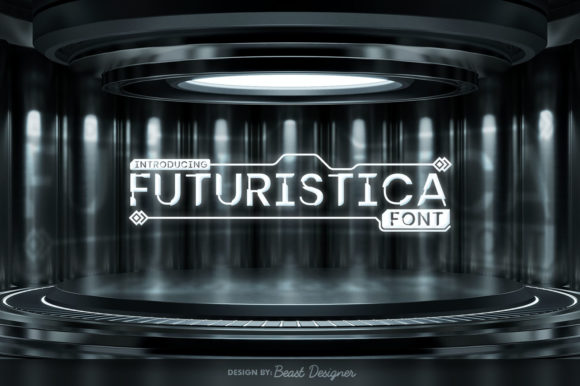
Step into the future of typography with Futuristica, the groundbreaking display font that will revolutionize your digital creations. Designed by the visionary Beast Designer, this font is a seamless blend of modernity and elegance, capturing the essence of innovation and progress.
Indulge in the limitless possibilities of Futuristica, meticulously crafted to elevate your designs to new heights. With its crisp and clean lines, this font exudes a sense of sophistication and cutting-edge aesthetics. Whether you're a seasoned designer or just starting, Futuristica is the key to unlocking your creative potential.
Unleash the power of Futuristica for your Kindle Book and embark on a literary journey like no other. This font's carefully selected characters and harmonious spacing create an immersive reading experience, transporting readers into the heart of your story. Futuristica is the perfect companion for your written masterpieces, captivating audiences with its distinctive style and readability.
Experience the versatility of Futuristica, a font that effortlessly adapts to a wide range of design projects. From eye-catching headlines and captivating social media posts to sleek logos and stunning presentations, Futuristica seamlessly complements your creative vision. Its adaptability knows no bounds, making it the ultimate choice for designers seeking a font that can keep up with their imagination.